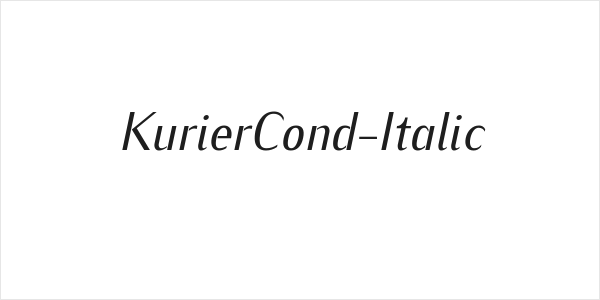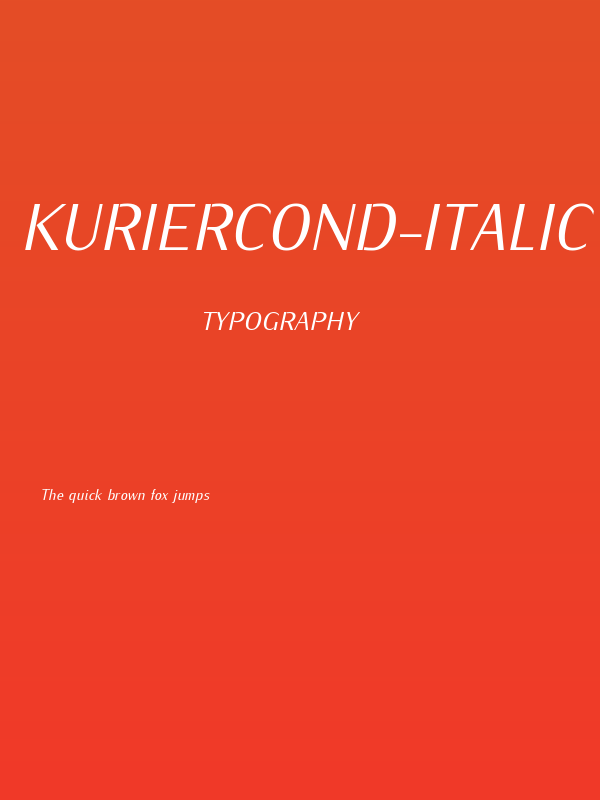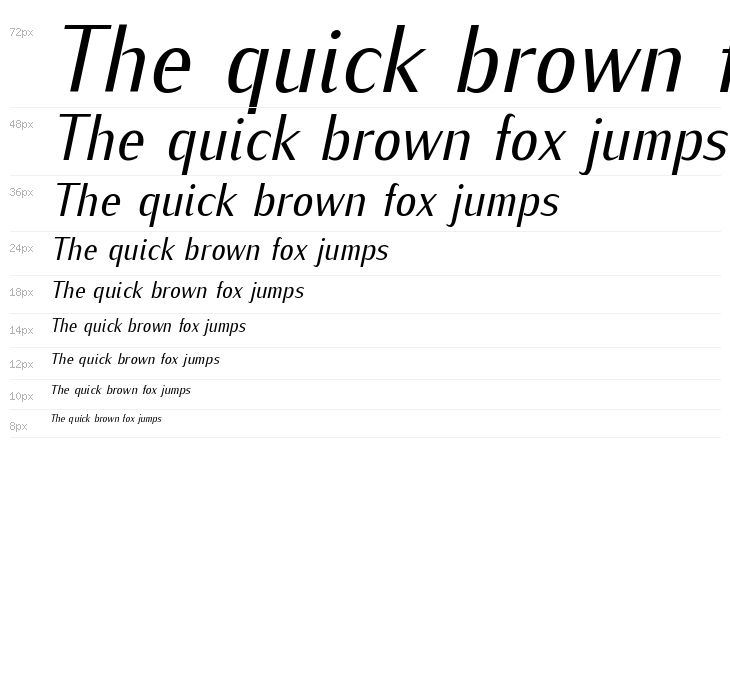
KurierCond-Italic Font
KurierCond-Italic Description
This font exhibits a sleek and modern style with a distinct italic slant, giving it a dynamic and forward-moving appearance. The characters are elegantly condensed, providing a sophisticated look that is both stylish and functional. The uppercase letters are tall and commanding, while the lowercase letters maintain a smooth and flowing form. The numerals are clear and easy to read, making them suitable for a variety of applications. Special characters are well-integrated, ensuring consistency across all glyphs. The overall design is clean and professional, making it ideal for contemporary projects.
| Proposed Projects | Ideal for branding, editorial design, advertising, and digital media where a modern and sophisticated touch is desired. |